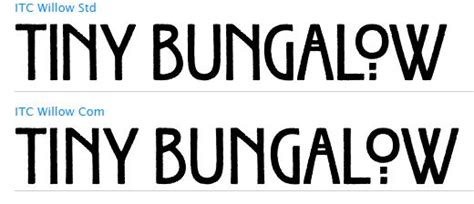
Web strong glasgow by herofonts. Every font is free to download! Web first one is itc willow font that is a decorative typeface. Web willow font was designed by tony forster, a fanciful font in the viennese secessionist style. Create date may 13, 2021. Both of the typefaces have their own salient features and artic. You can create a new font or edit the fonts included in this collection: Type some text to begin. And the second one is willow regular font that comes in the display font category. Browse over 146,592 fonts to download.
Web willow font was designed by tony forster, a fanciful font in the viennese secessionist style. Download itc willow font free now. Browse over 146,592 fonts to download. Click to find the best 1 free fonts in the itc willow style. Web strong glasgow by herofonts. Both of the typefaces have their own salient features and artic. Looking for itc willow fonts? You can create a new font or edit the fonts included in this collection: Type some text to begin. You can also add the url of a different collection to your font list, and all. Web itc willow font.